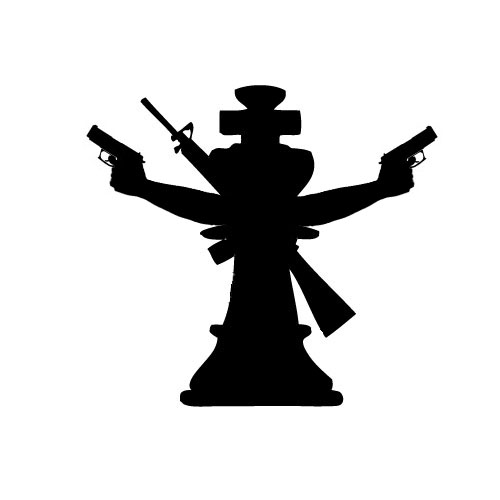
Hey does anyone know of any fonts that would look good with this logo. I have to put the company name and I want to look good. I found a text font I like but I do not know its name. A sample of it is found on this page, it is the final font he used (http://www.garysimon.net/logotutorial/). So if you know what this font is or have a better idea for a font, please tell me.
I would just use any font that I found matches the brief and the company and settle on that. It would pay no dividends to suggest a 101 different sans serif fonts.
No intent to be a curmudgeon about it.
Find something that fits the theme of the company. If not, make sure it's a professional looking font. You want the company to be proud of their logo. Also, don't forget that the purpose of the logo is to make the company stand out from others at a glance.
i would say simplicity is beauty..
whatever design you may pick.. for as long as you like it, and you will be happy for it.. just go go go..
Check in google for: phtotoshop logo design effect. Then you'll fined some.